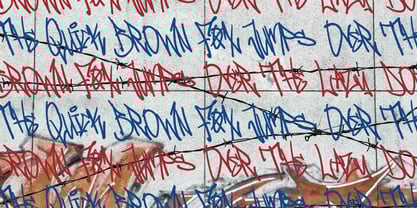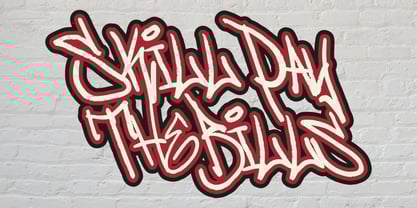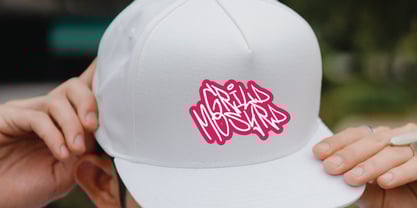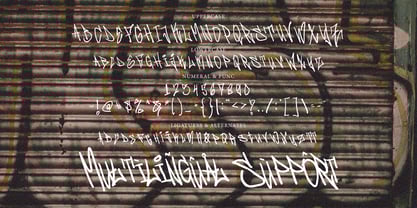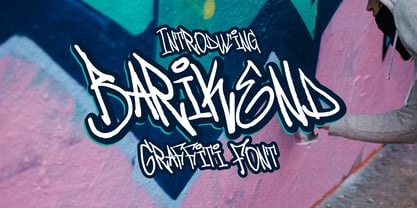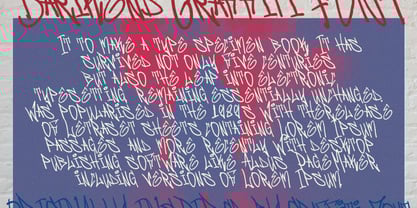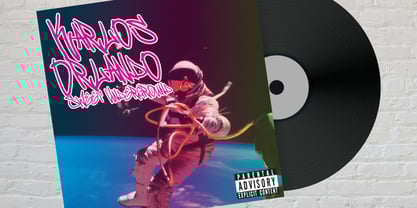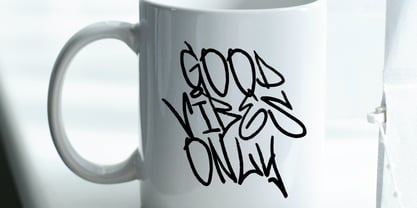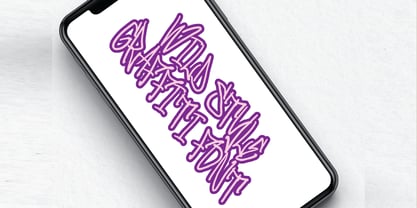
Barikend Graffiti
by Tebaltipis Studio
The Barikend Graffiti Font Family was designed by Dzulka Elfira and published by Tebaltipis Studio. Barikend Graffiti contains 1 styles.
Barikend Graffiti is a display font inspired by typical street art calligraphy style or graffiti tag, suitable for your design related to it. Also suitable for movie, documenter, film, logo, poster, game, book cover, headlines, title and many more projects. Add this font to your creative ideas and notice how it will make them stand out!